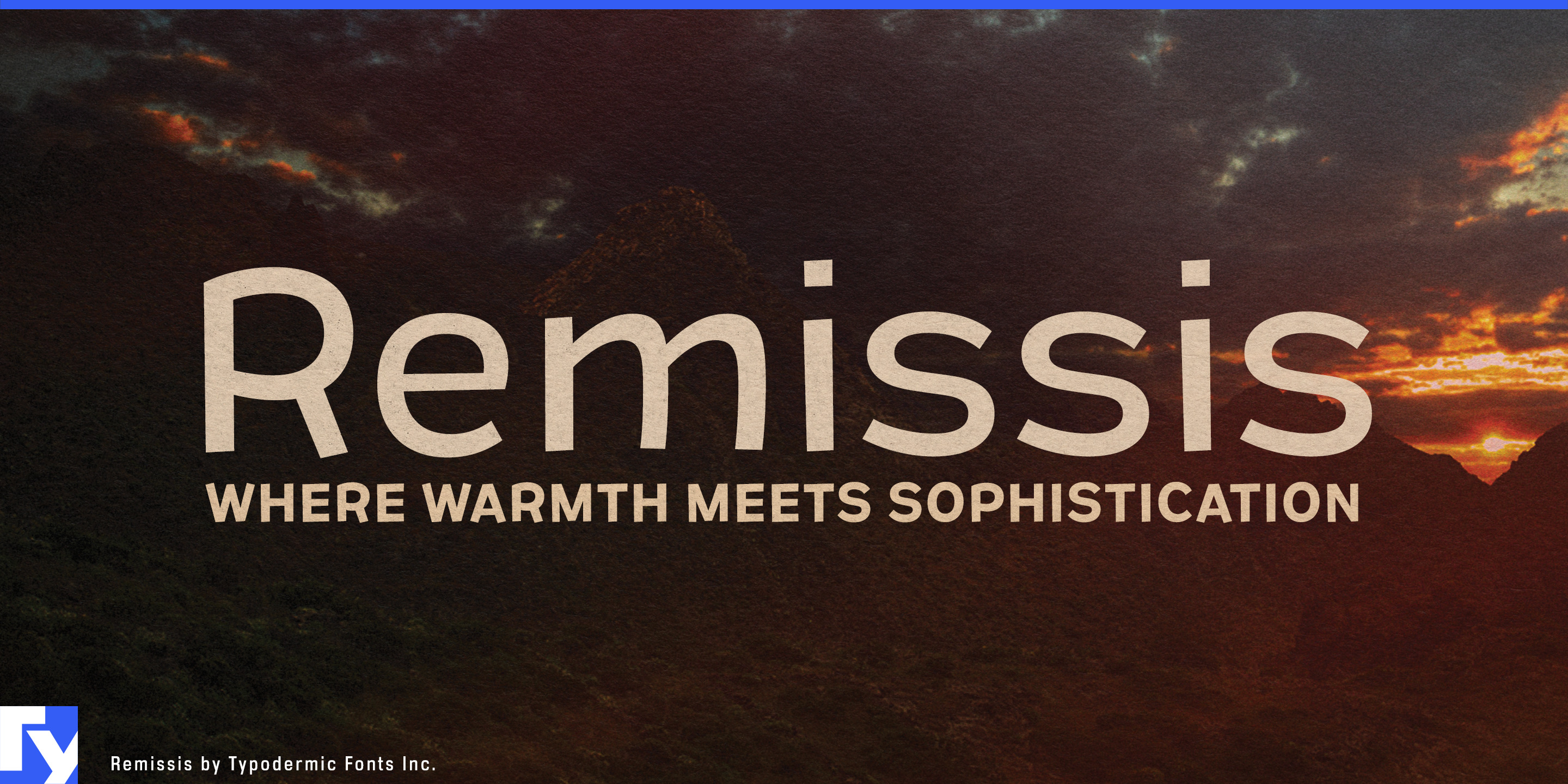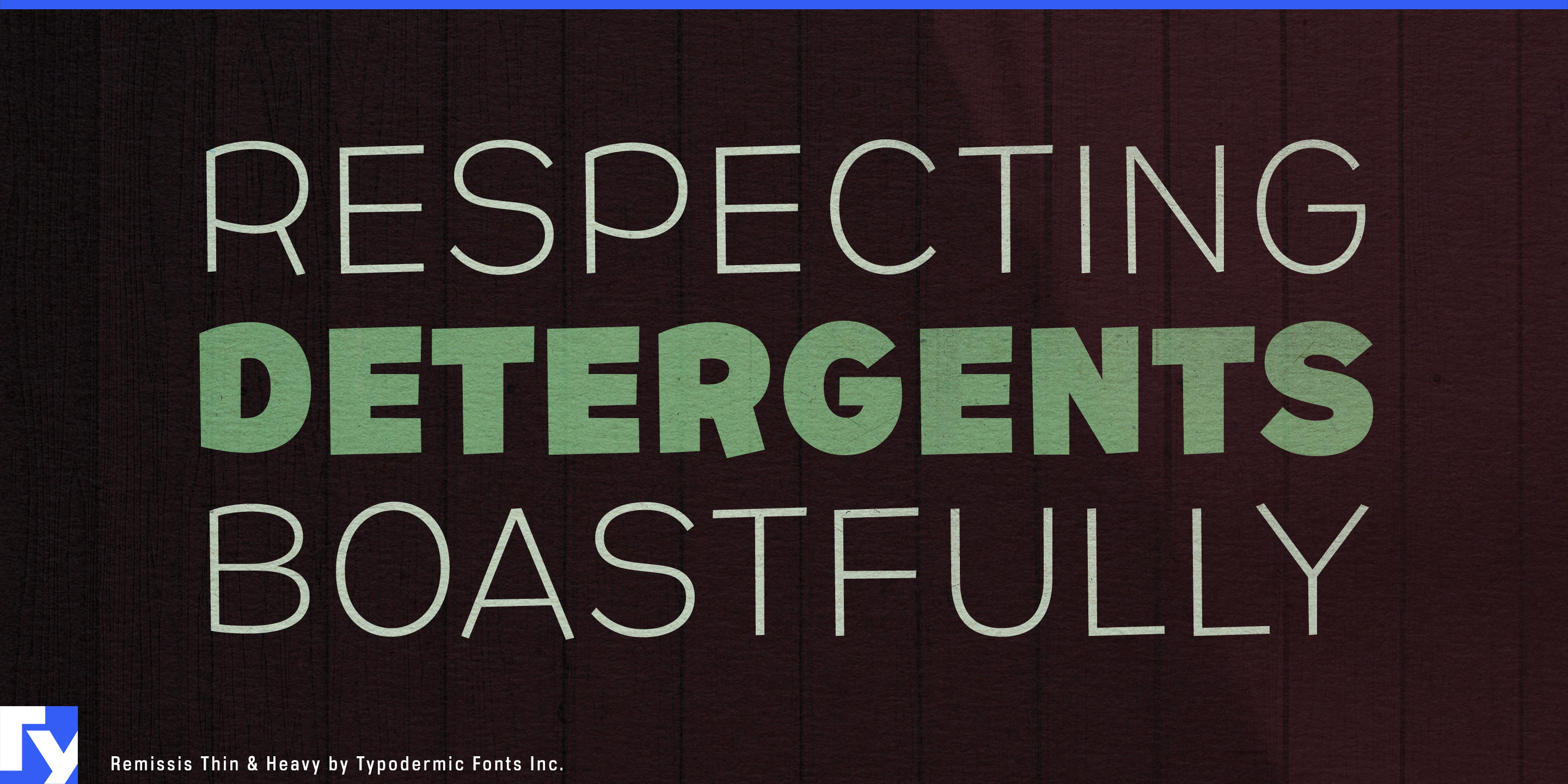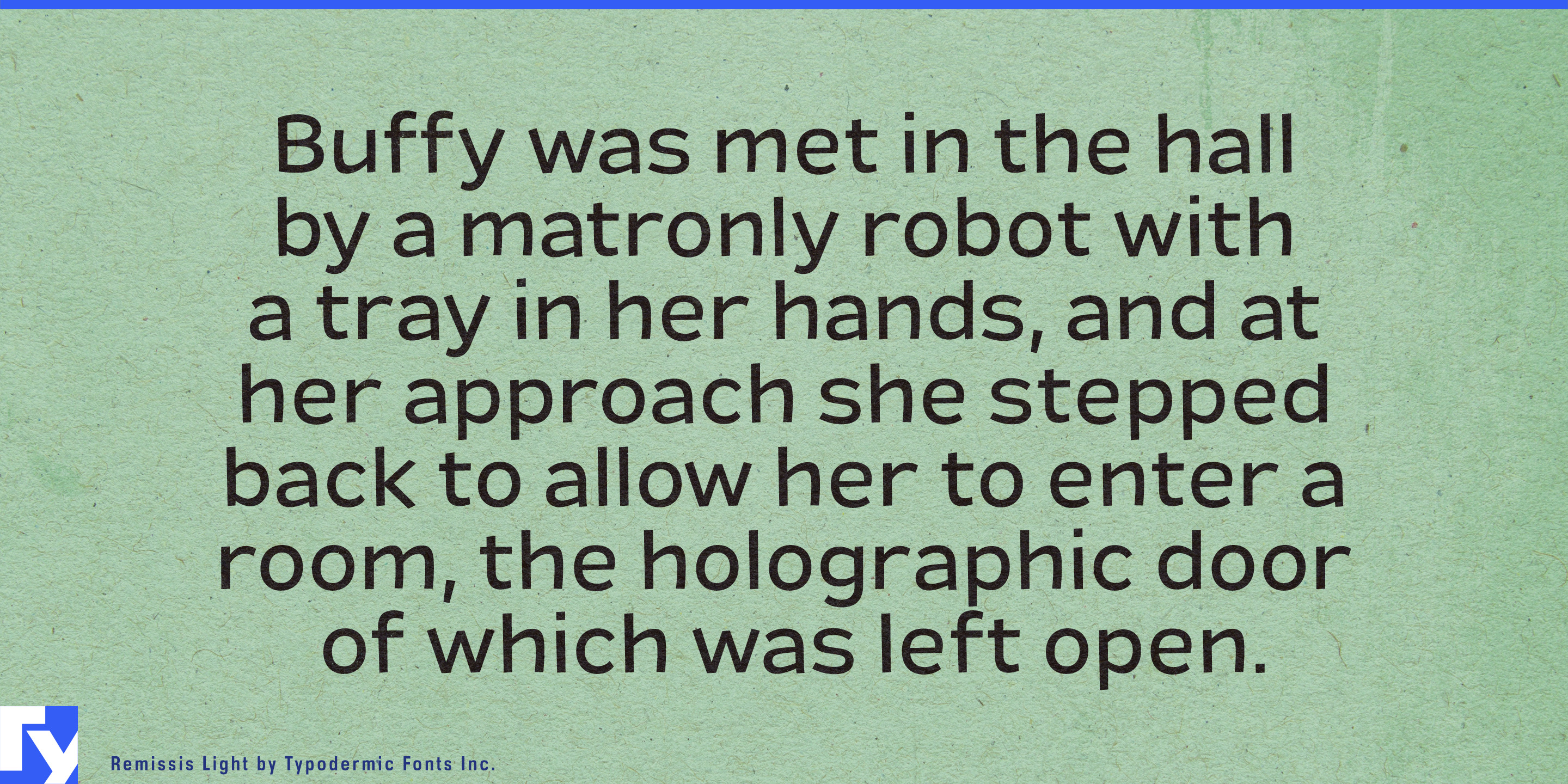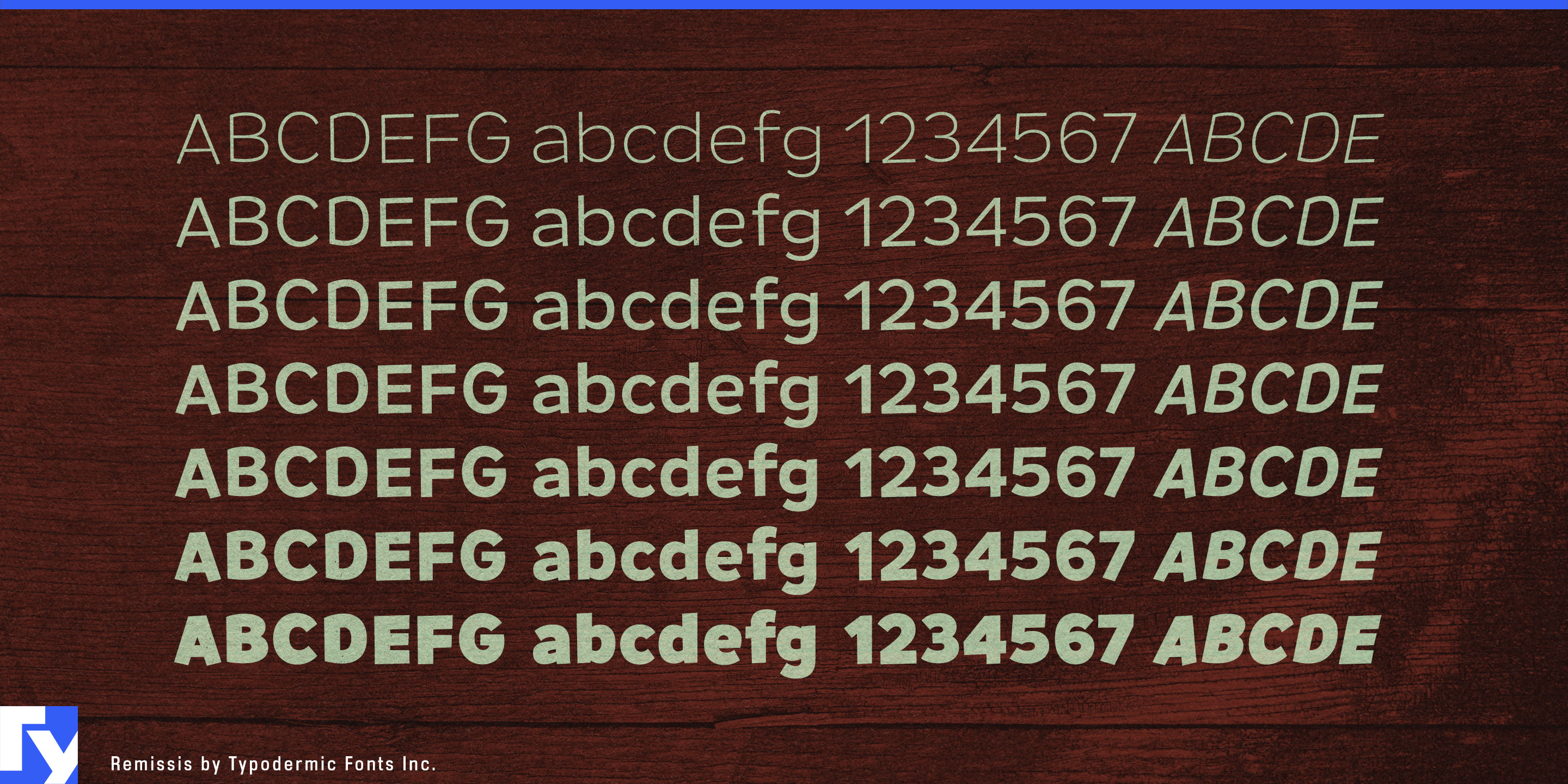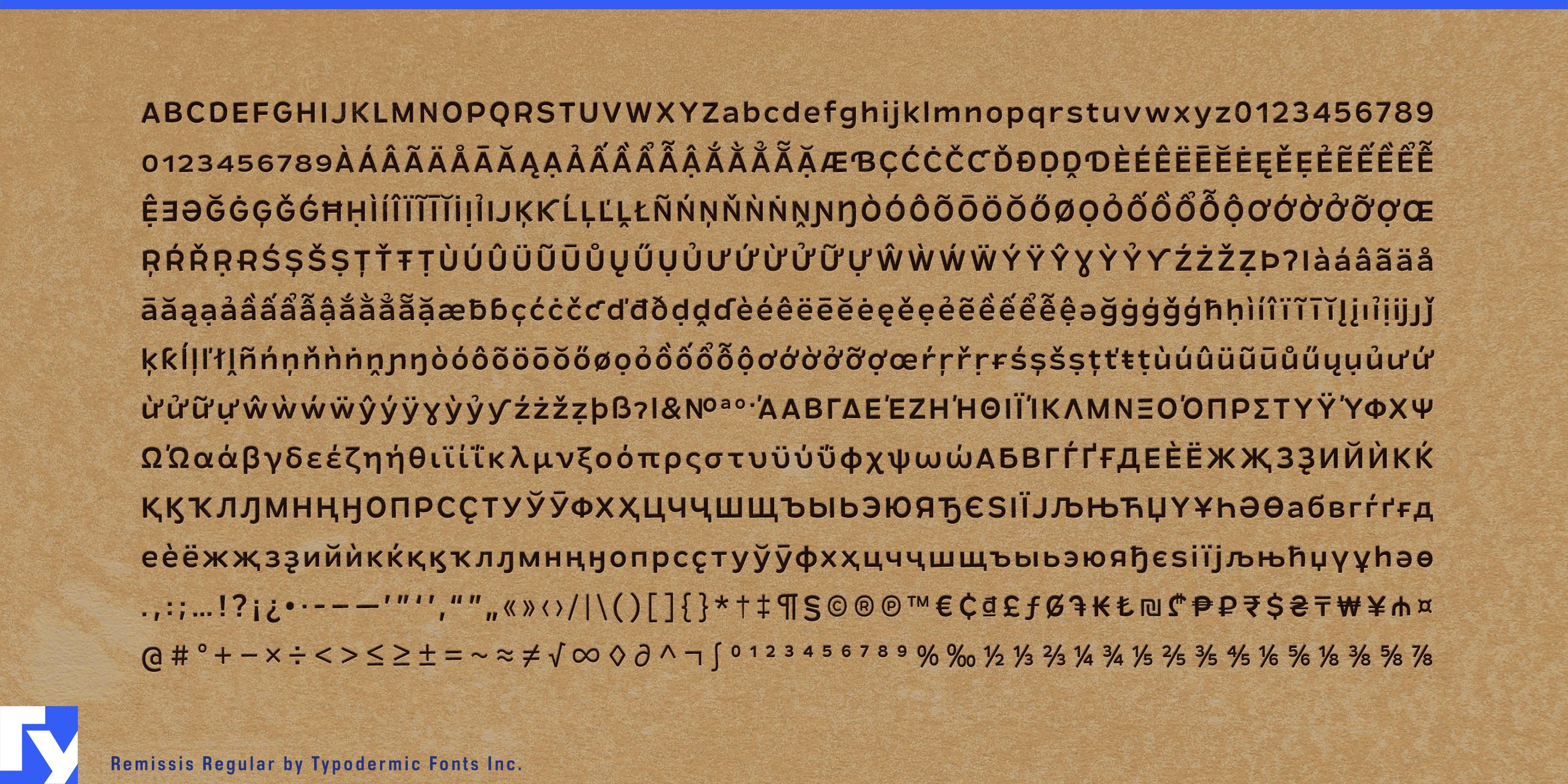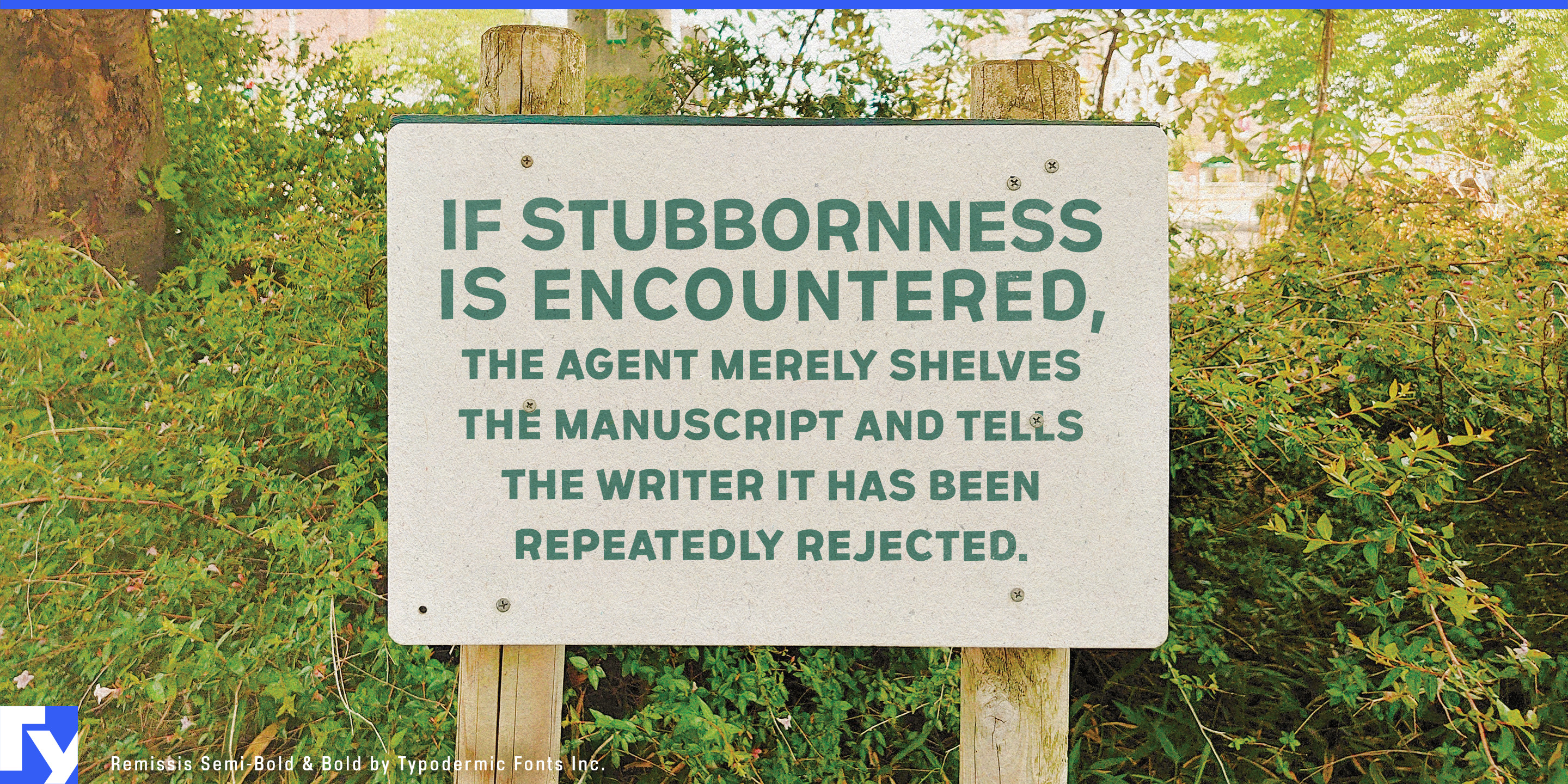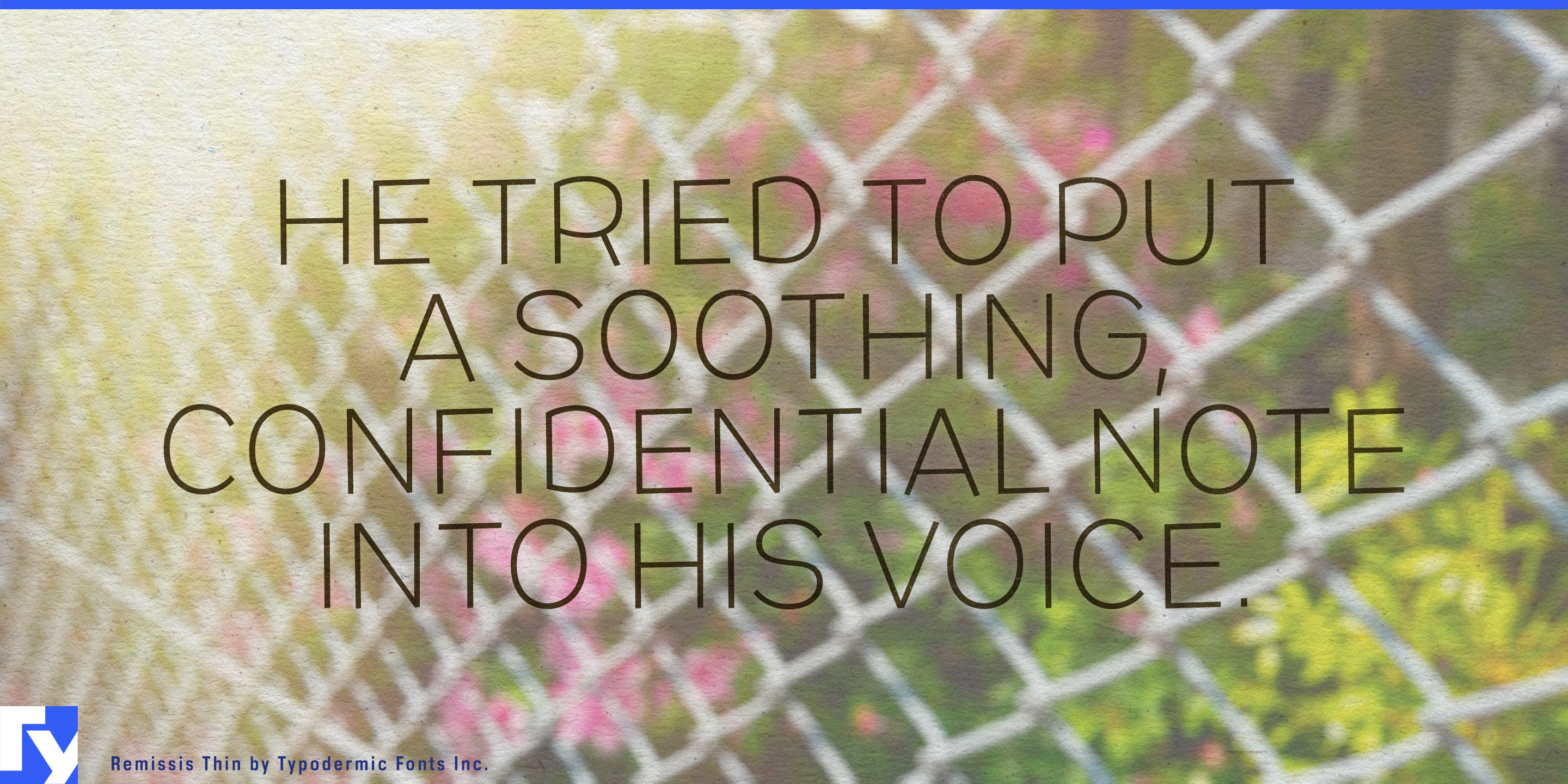
Remissis is a sans-serif typeface that is semi-casual. It’s not too easygoing to be deemed whimsical, but it still exudes a natural look. This typeface is perfect for conveying the idea of naturalness and softness without coming off as zany. Remissis was created for high-resolution display and print; its delicate horizontal angles may be unsuitable for some low-resolution displays. Unique “lining old-style” numerals are available in OpenType-capable apps. There are numerous mathematical symbols, monetary symbols, and diacritical marks. Remissis comes in seven weights and italics. Most Latin-based European, Vietnamese, Greek, and most Cyrillic-based writing systems are supported, including the following languages. Afaan Oromo, Afar, Afrikaans, Albanian, Alsatian, Aromanian, Aymara, Azerbaijani, Bashkir, Bashkir (Latin), Basque, Belarusian, Belarusian (Latin), Bemba, Bikol, Bosnian, Breton, Bulgarian, Buryat, Cape Verdean, Creole, Catalan, Cebuano, Chamorro, Chavacano, Chichewa, Crimean Tatar (Latin), Croatian, Czech, Danish, Dawan, Dholuo, Dungan, Dutch, English, Estonian, Faroese, Fijian, Filipino, Finnish, French, Frisian, Friulian, Gagauz (Latin), Galician, Ganda, Genoese, German, Gikuyu, Greenlandic, Guadeloupean Creole, Haitian Creole, Hawaiian, Hiligaynon, Hungarian, Icelandic, Igbo, Ilocano, Indonesian, Irish, Italian, Jamaican, Kaingang, Khalkha, Kalmyk, Kanuri, Kaqchikel, Karakalpak (Latin), Kashubian, Kazakh, Kikongo, Kinyarwanda, Kirundi, Komi-Permyak, Kurdish, Kurdish (Latin), Kyrgyz, Latvian, Lithuanian, Lombard, Low Saxon, Luxembourgish, Maasai, Macedonian, Makhuwa, Malay, Maltese, Māori, Moldovan, Montenegrin, Nahuatl, Ndebele, Neapolitan, Norwegian, Novial, Occitan, Ossetian (Latin), Papiamento, Piedmontese, Polish, Portuguese, Quechua, Rarotongan, Romanian, Romansh, Russian, Rusyn, Sami, Sango, Saramaccan, Sardinian, Scottish Gaelic, Serbian, Serbian (Latin), Shona, Sicilian, Silesian, Slovak, Slovenian, Somali, Sorbian, Sotho, Spanish, Swahili, Swazi, Swedish, Tagalog, Tahitian, Tajik, Tatar, Tetum, Tongan, Tshiluba, Tsonga, Tswana, Tumbuka, Turkish, Turkmen (Latin), Tuvaluan, Ukrainian, Uzbek, Uzbek (Latin), Venda, Venetian, Vepsian, Vietnamese, Võro, Walloon, Waray-Waray, Wayuu, Welsh, Wolof, Xavante, Xhosa, Yapese, Zapotec, Zarma, Zazaki, Zulu and Zuni.